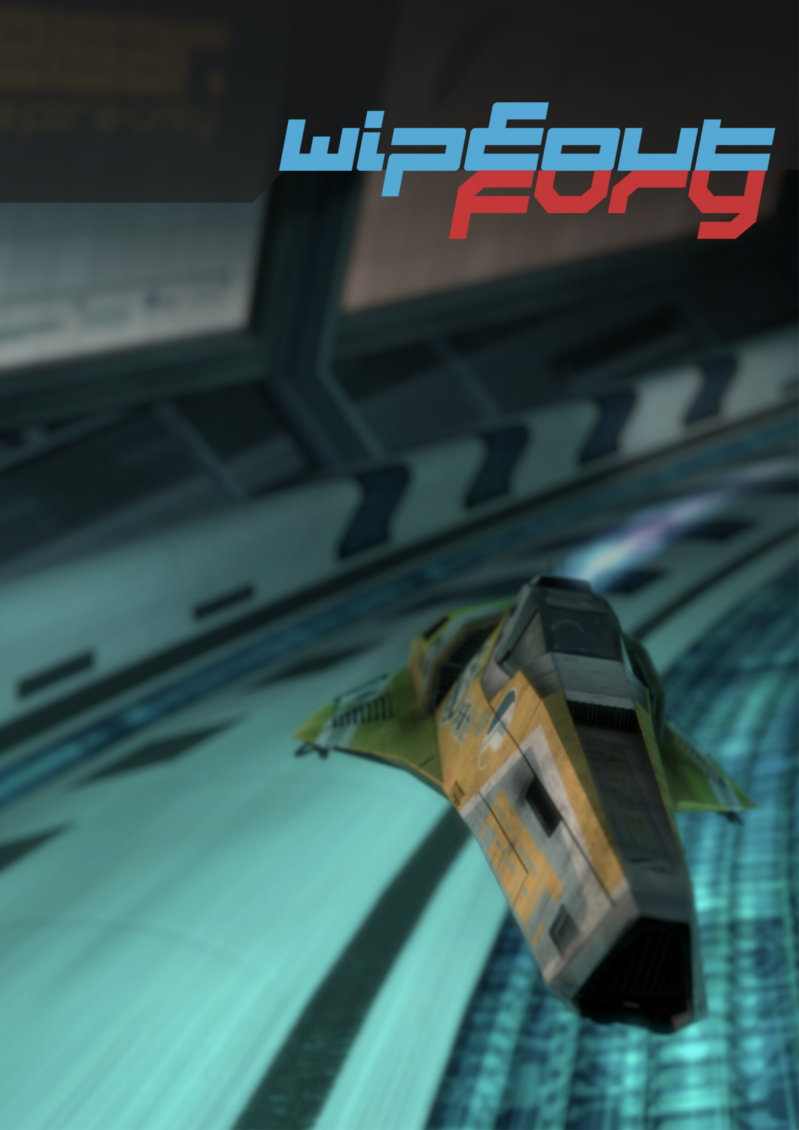
Preview and download Wipeout HD Fury Font. Created by NathanCaldecott in Techno Sci-fi styles with Free for personal use license.
*TITLED: Wipeout HD+Fury (Wipeout HD Series)* "Here are 2 fonts based on the logos for Wipeout HD, and the Wipeout HD Fury expansion pack. The fonts feature the lower-case alphabet, and where examples are not provided, I've done my best to stick to the 'rules' of the letter structure. Included in the package: -A Promotional Poster showcasing both of the fonts -Font* -Example Logo Graphic* -Letter Makeup Diagram* *Available for both HD and Fury" There's no official font available for this, and I made it myself based on the images and videos available. Made in 2009. |